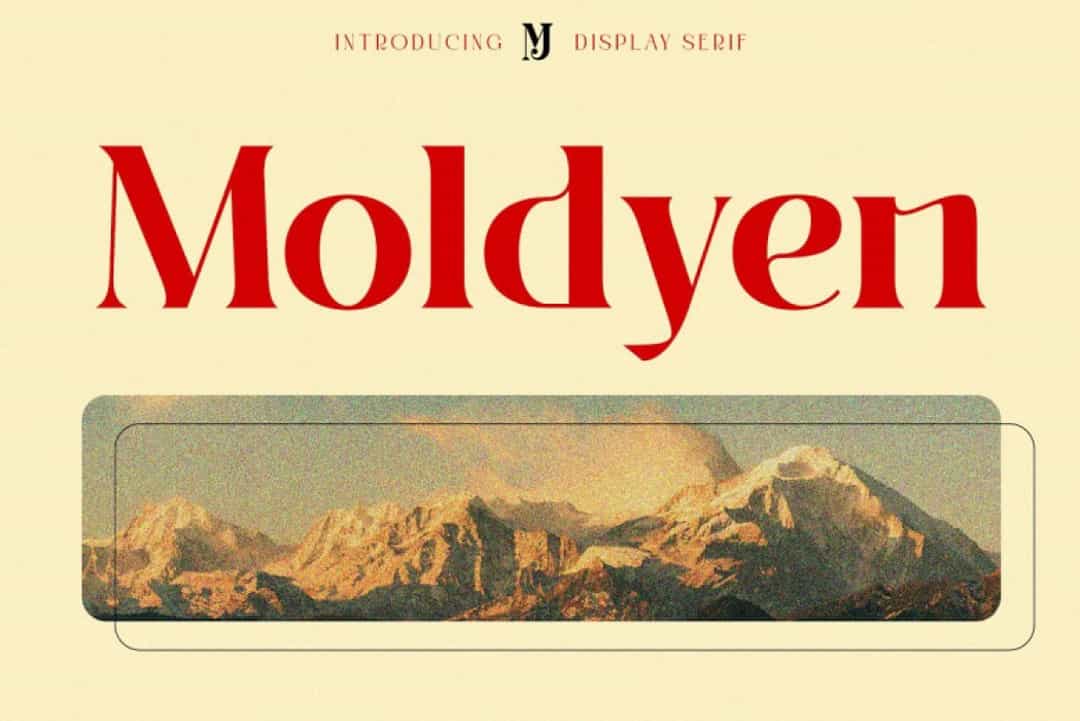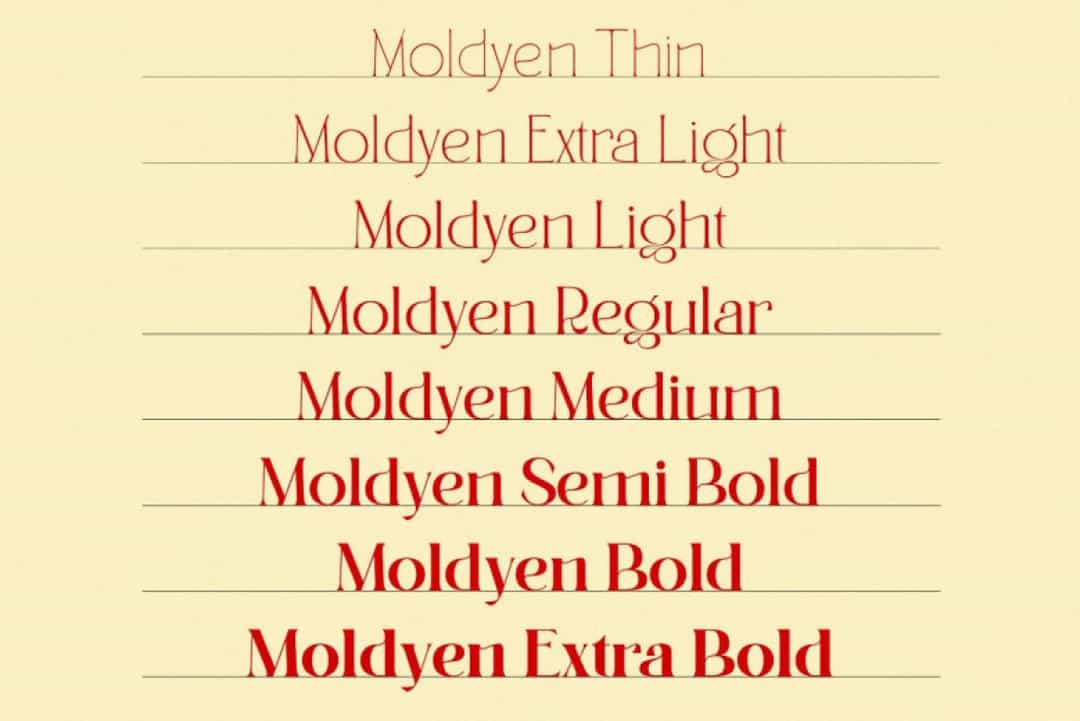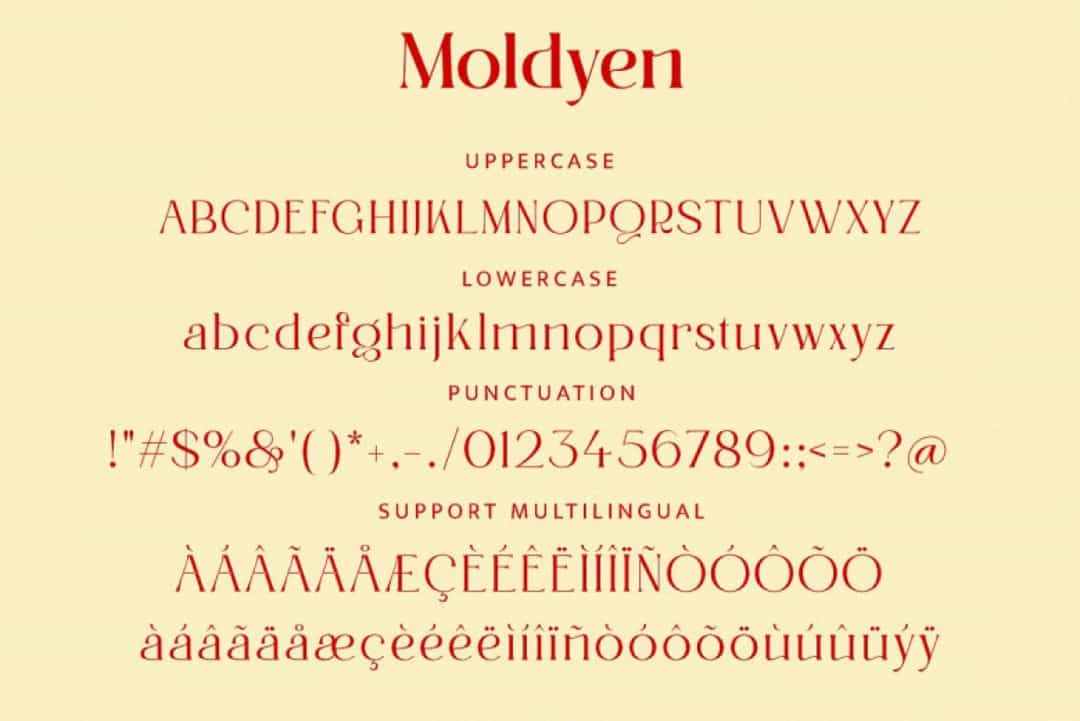
Moldyen is an elegant serif typeface that combines traditional style with contemporary functionality. Boasting sleek lines, elegant curves and beautiful letterforms, Moldyen adds sophistication and refinement to any design project.